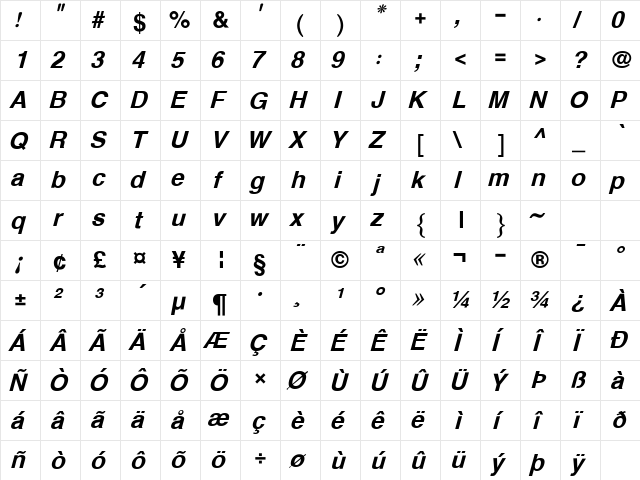
XB Riyaz Bold Italic
| Foundry | Irmug.org |
| Designer | Behnam |
Design Context for XB Riyaz Typeface
XB Riyaz takes a measured approach to typography — its balanced proportions and neutral character make it a reliable workhorse for both digital and print work. Its italic angle brings a sense of urgency and motion to the letterforms. The heavy weight commands attention and anchors typographic hierarchies.
Pro Tip: Use XB Riyaz for emphasis, pull quotes, and subheadings where its slanted energy can add rhythm to the layout.